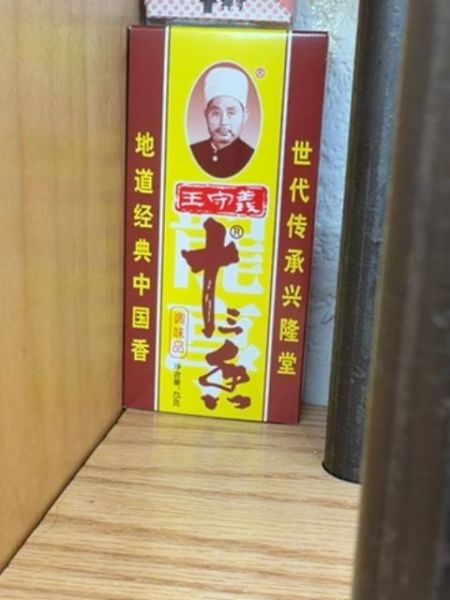
A product associated with traditional Chinese medicine, possibly used for its therapeutic properties.
The typography prominently features bold Chinese characters, which are traditional and ornate, conveying a sense of authenticity and historical richness. The characters are large and stand out against the vibrant yellow background, ensuring visibility and recognition.
The packaging features a red and yellow color scheme with a portrait of a man at the top. Chinese characters are prominently displayed, suggesting a connection to traditional Chinese culture.
- The brand has historical ties to traditional medicine.
- It features a portrait, indicating its historical significance.
- The use of bold colors emphasizes its cultural heritage.